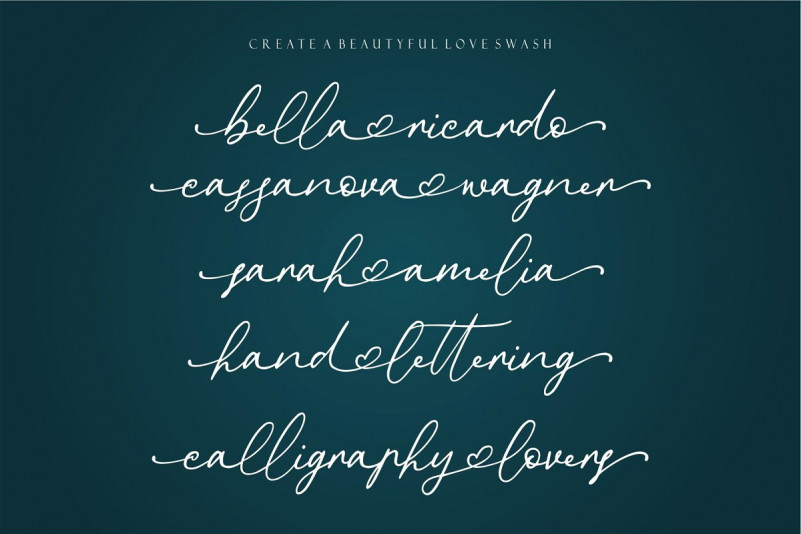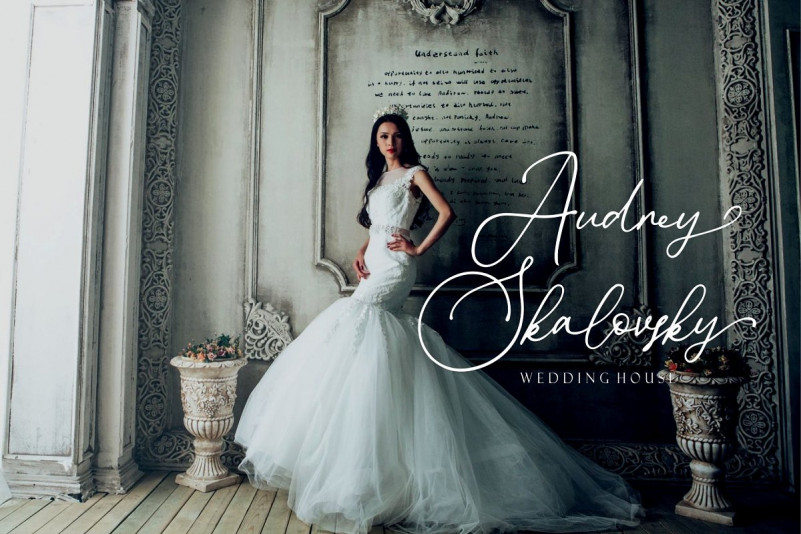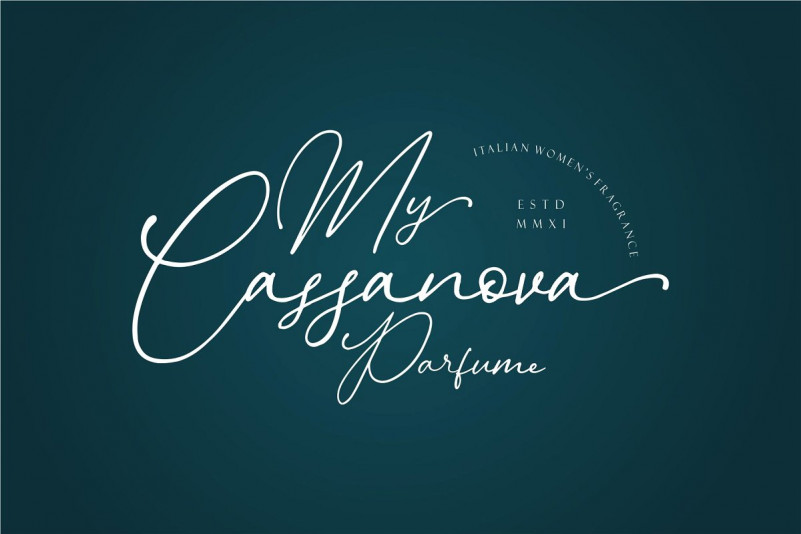
Donatellia Signature Font
Donatellia Signature Demo Font
Starting a new week with a special free font package, it is a signature script font that you will enjoy. Keep it in your fonts collection. Introducing Donatellia Signature Font. It’s designed and shared by Garisman Std. Donatellia very perfect for logos, wedding invitations, posters, business cards, logos, headlines, Instagram stories, youtube stories, book cover, poster promotion and many more! Include OTF, TTF and WOFF files with many ligatures and opentype features, also Stylistic Sets with end & start love swashes.